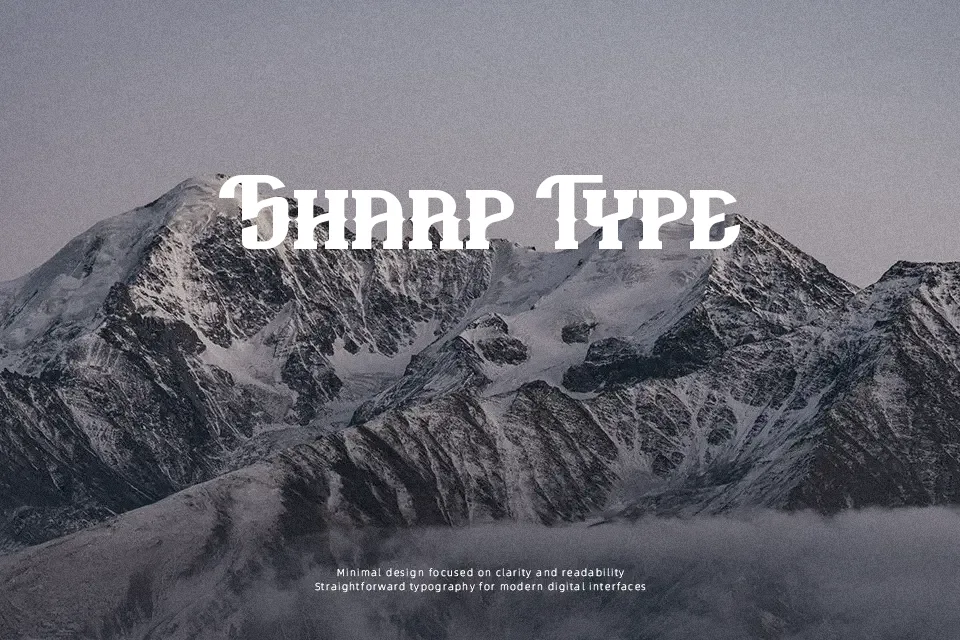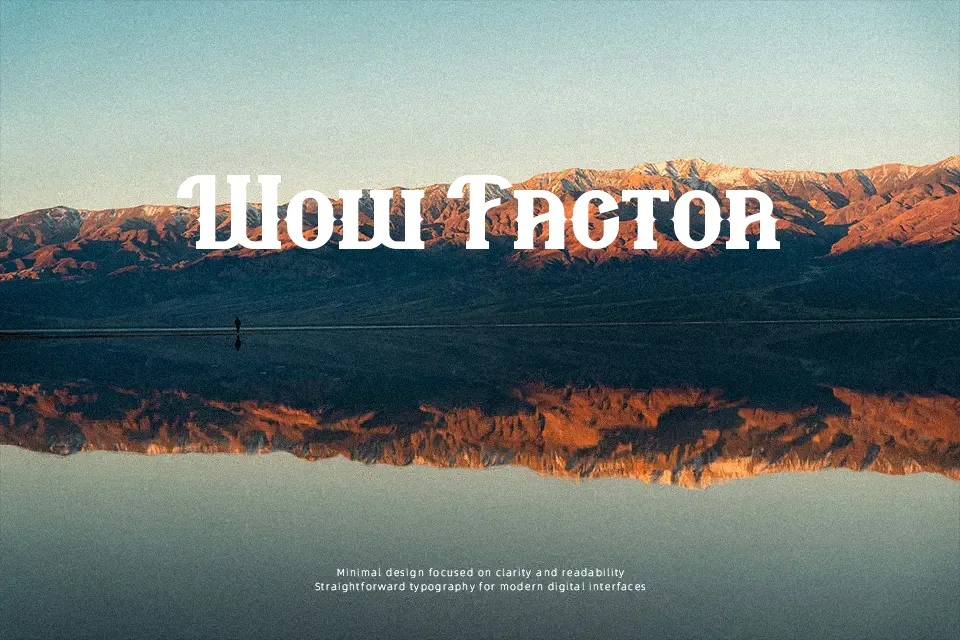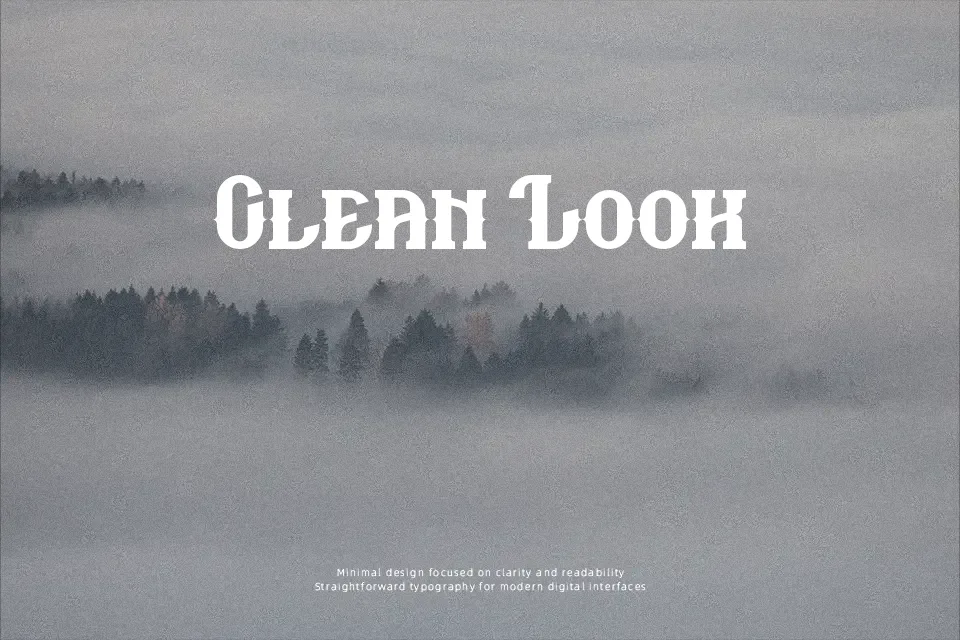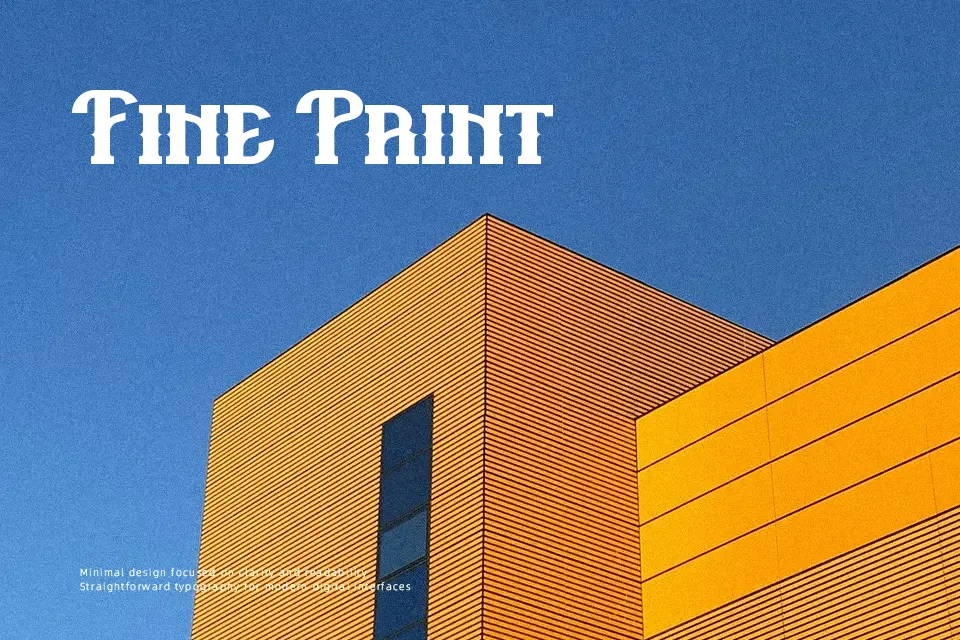
Block Black Font
Block Black Font is an uncompromising display typeface defined by its immense weight, tightly packed spacing, and aggressively blocky structure. Drawing inspiration from gothic aesthetics, it merges rigid angles with a distinct retro vibe. The result is an imposing visual presence that immediately dominates the canvas. This typeface excels in maximalist design environments—like branding a high-energy esports tournament, designing striking energy drink packaging, or crafting loud streetwear graphics. However, its massive stroke thickness heavily compromises legibility at smaller scales. Designers should strictly avoid using it for body copy, digital interface menus, or corporate editorial layouts where clarity is paramount. Compared to traditional display fonts, Block Black offers a raw chunkiness that feels exceptionally rebellious.
High-energy esports team branding and tournament graphics
Edgy streetwear apparel and merchandise
Attention-grabbing festival posters and music album covers
Punchy, large-scale energy drink packaging
Dense editorial body copy and magazine articles
Minimalist or elegant luxury brand identities
Small-scale digital interface elements and mobile menus
Perfect for gaming, headline, and logo, with a bold and blackletter style.